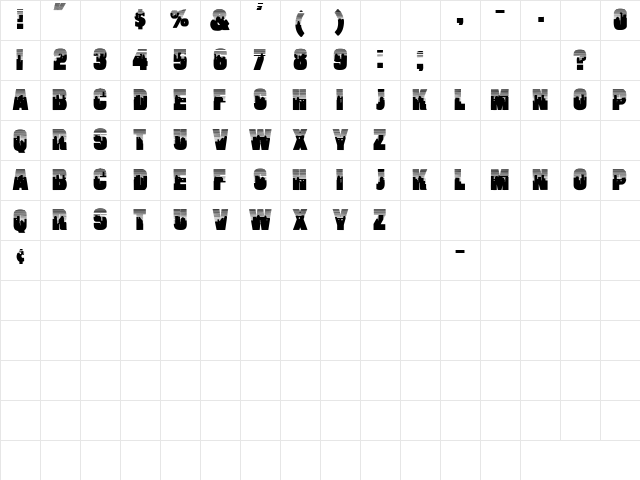
Changes 4 Regular
Design Context for Changes 4
Changes 4 is a composed and adaptable typeface that performs quietly and consistently across a wide range of design contexts.